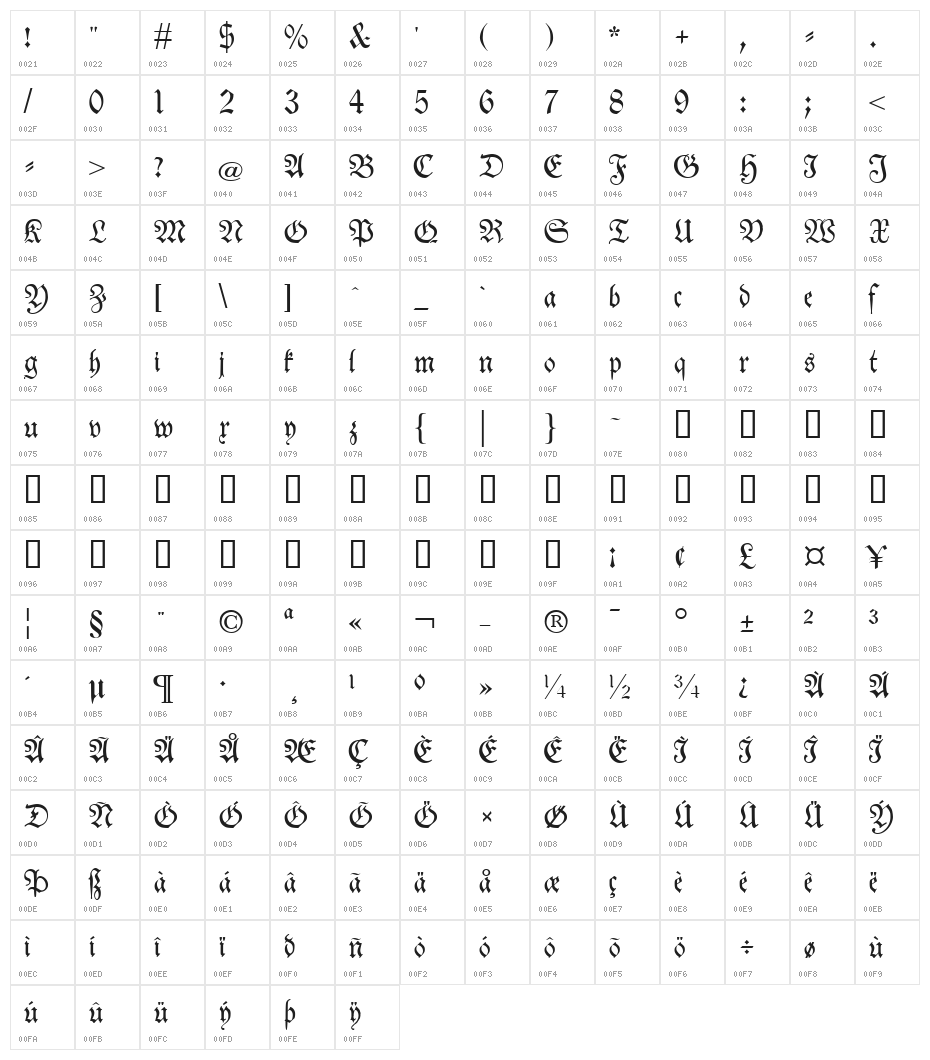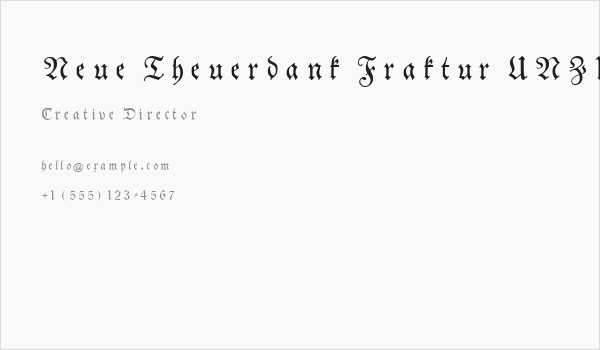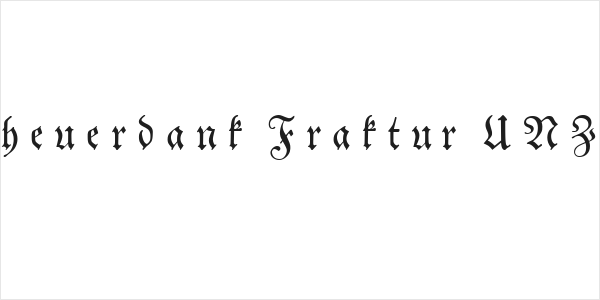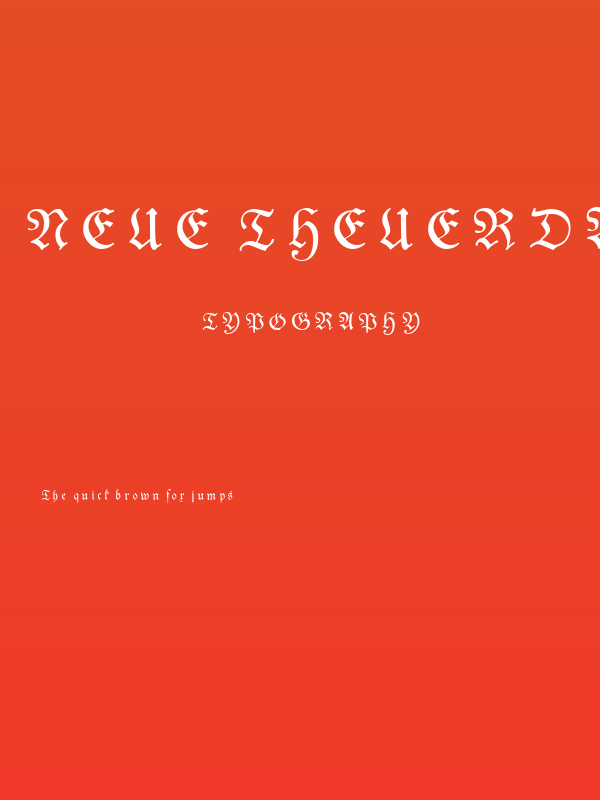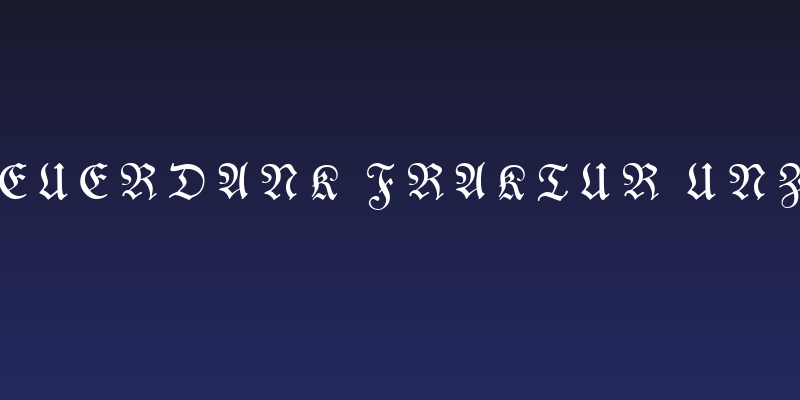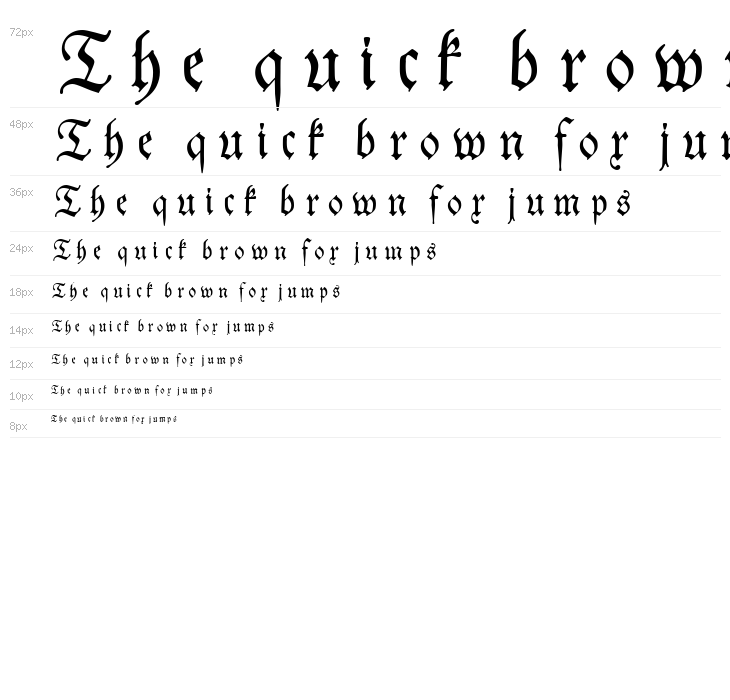
Neue Theuerdank Fraktur UNZ1 Italic Font
Neue Theuerdank Fraktur UNZ1 Italic Description
This font features a classic blackletter style, characterized by its intricate and ornate letterforms. The uppercase letters exhibit a strong, angular structure with decorative flourishes, while the lowercase letters maintain a consistent style with elongated ascenders and descenders. The numerals are bold and distinct, complementing the overall medieval aesthetic. Special characters are crafted with the same attention to detail, enhancing the font's historical and traditional appeal. The italic slant adds a dynamic and elegant touch, making it suitable for projects that require a touch of sophistication and historical reference.
Overall StyleVintage
Proposed ProjectsIdeal for historical documents, wedding invitations, book covers, and branding that requires a traditional or medieval touch.